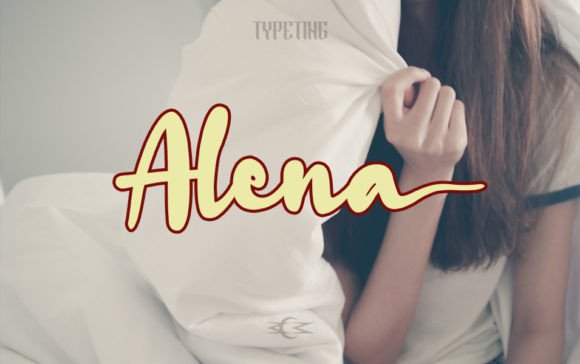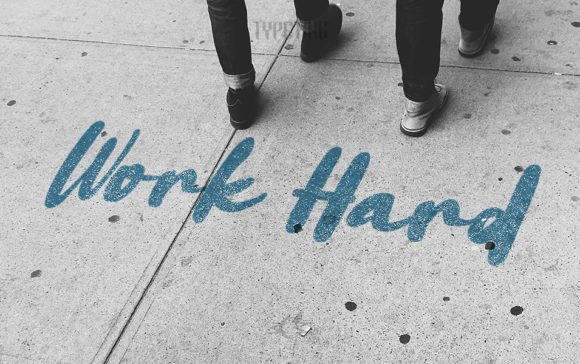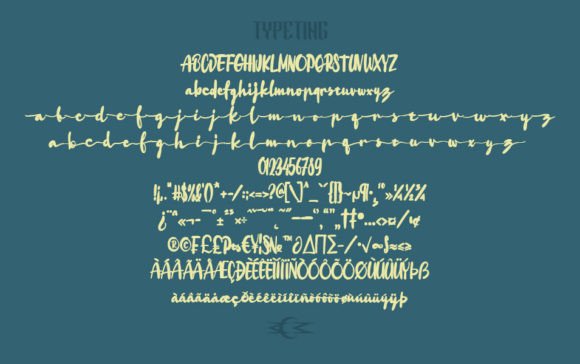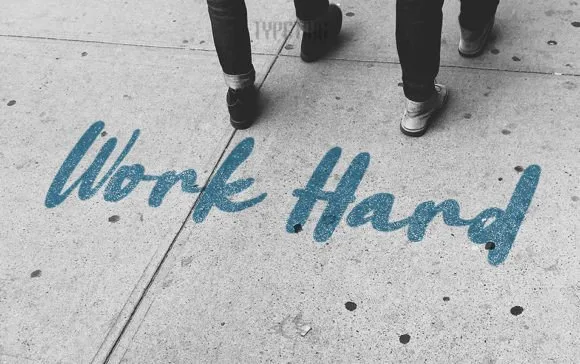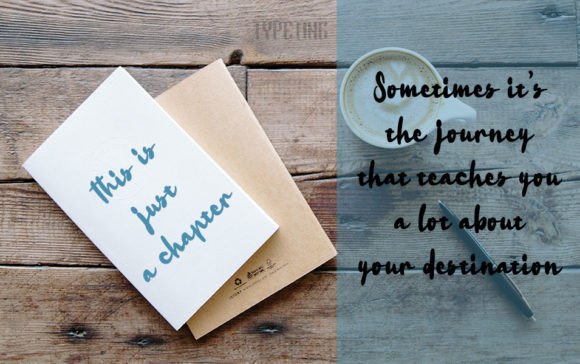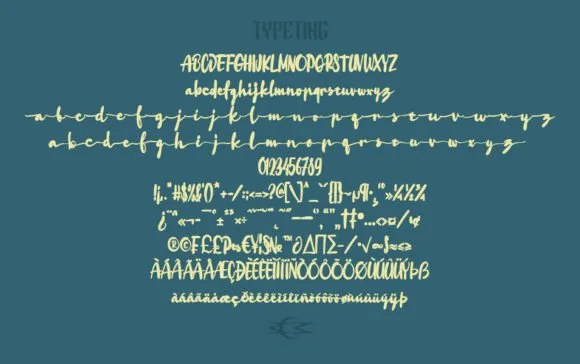
Alena Font
About Alena Font
“Alena” is not just a font; it’s a cute and casual handwritten typeface designed to be an incredible asset in your font collection. Regardless of the topic, this font stands out as a versatile and charming choice that can turn any creative idea into a lovely piece of art.
The cuteness and casualness of “Alena” are evident in its handwritten style, which brings a friendly and approachable feel to your text. The font is crafted with a playful and laid-back character, making it suitable for a wide range of applications. Whether you’re working on branding, social media graphics, or other creative projects, this font adds a touch of charm to your designs.
The versatility of “Alena” is showcased by its adaptability to different creative ideas and contexts. Its cute and casual nature makes it a perfect choice for projects that require a lighthearted and approachable aesthetic. This font becomes a reliable asset for designers seeking a typeface that can add a touch of charm to their work.
Adding “Alena” to your font collection becomes an invitation to explore the cute and casual side of design. The font stands out as a delightful asset that can enhance the visual appeal of your projects. Let it be the key element that brings a sense of charm to your branding, social media graphics, and various other creative endeavors.
In summary, “Alena” is more than just a font; it’s a cute and casual handwritten typeface designed to be an incredible asset in your font collection. Embrace its charm, and confidently add it to your font library. “Alena” is an invitation to explore the lovely and versatile possibilities it brings to your design projects.